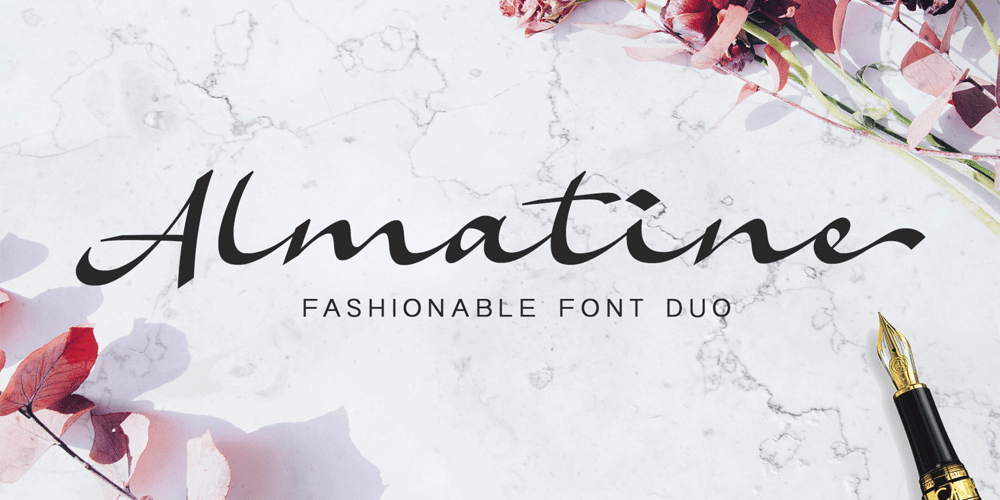
Almatine
Almatine font
Almatine Font Family was designed by Ahmad Ramzi Fahruddin and published by Arterfak Project. Almatine contains 2 styles and family package options. Almatine Script is a classic signature font inspired by classic handwriting that using a flat pen (or signature pen) and written in the low height of letterforms. There is Almatine Sans as the combination, a clean sans serif that you can use the sans serif for sub-headline, tagline, and body text.This font duo has elegant looks and modern that perfect for logotype, display, labels, watermarks, signatures, signage, photography, weddings, advertisements, fashion, food, magazines, and much more!Almatine Script equipped with some OpenType features such as stylistic alternates, stylistic sets, and ligatures that you can mix and match to get the natural handwriting looks!